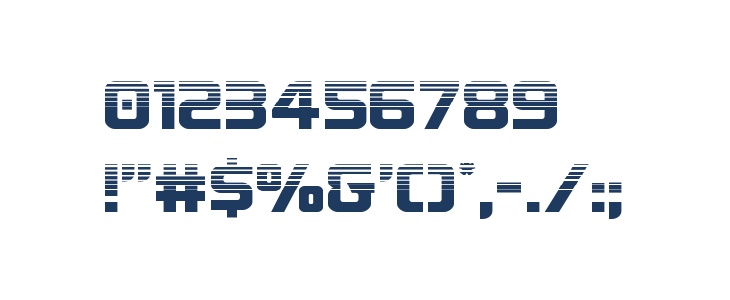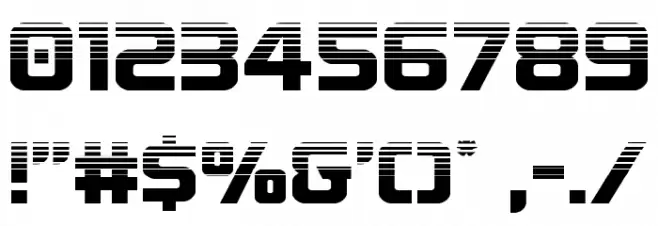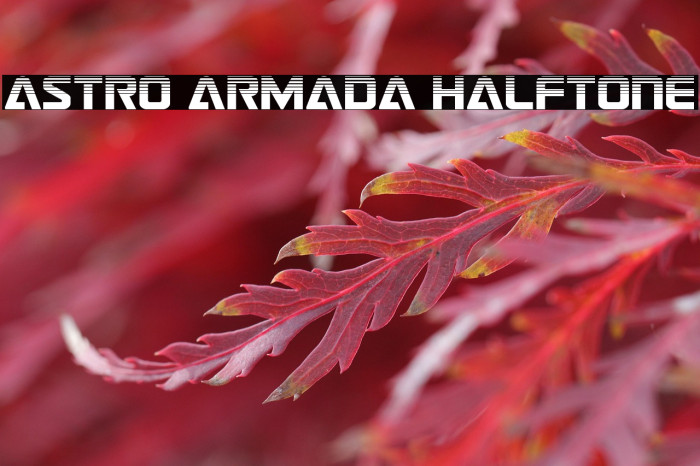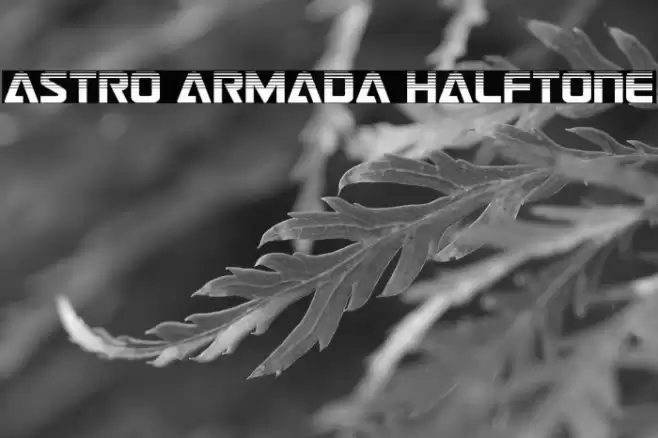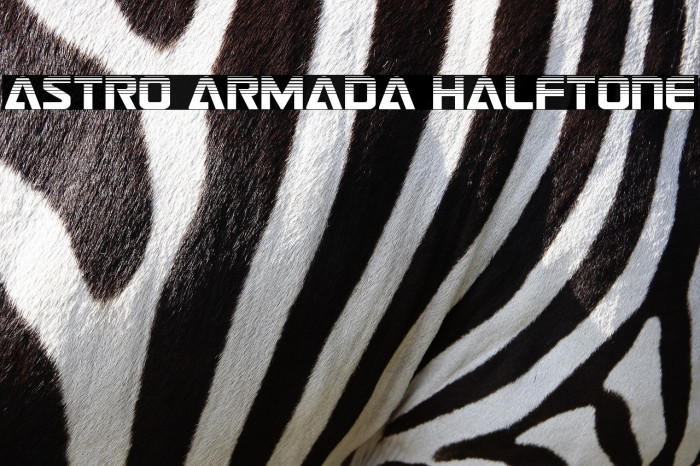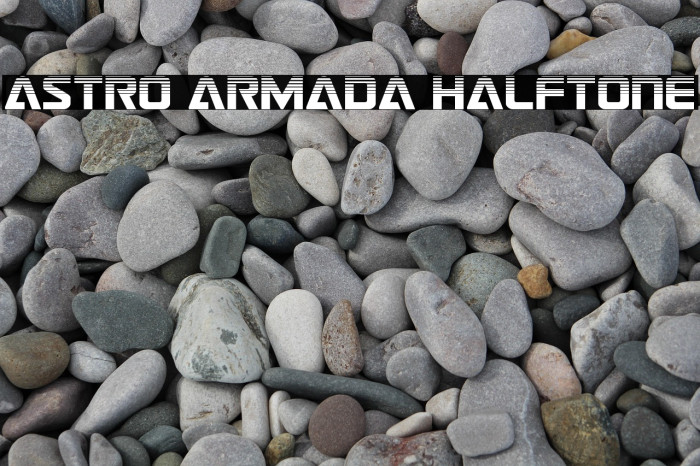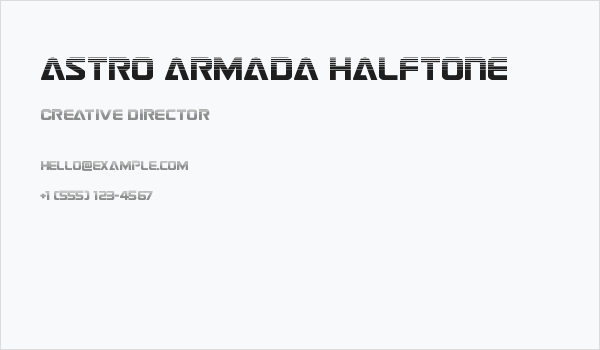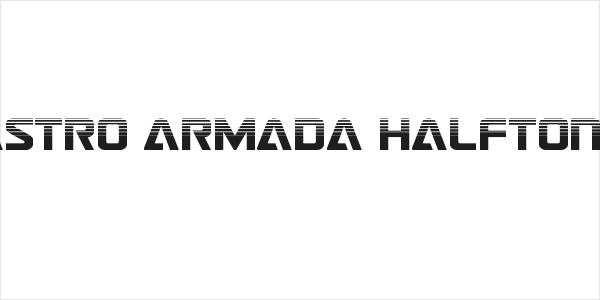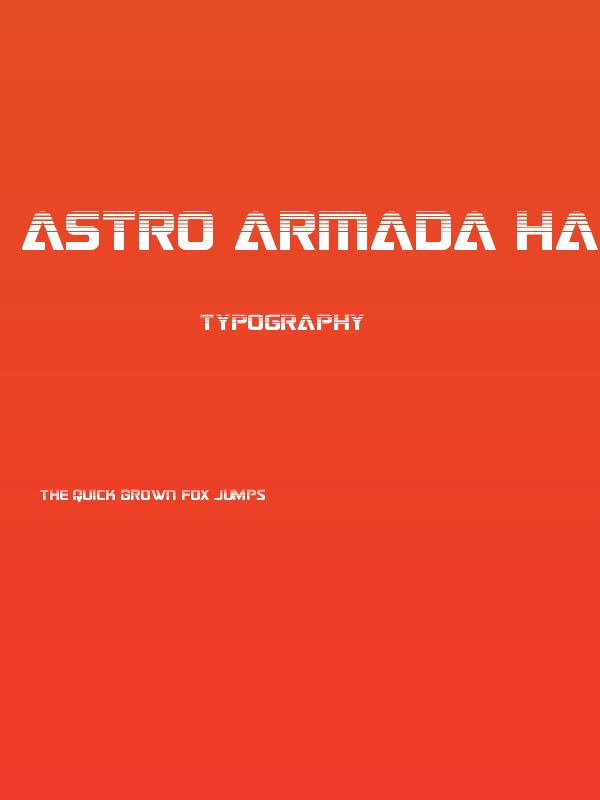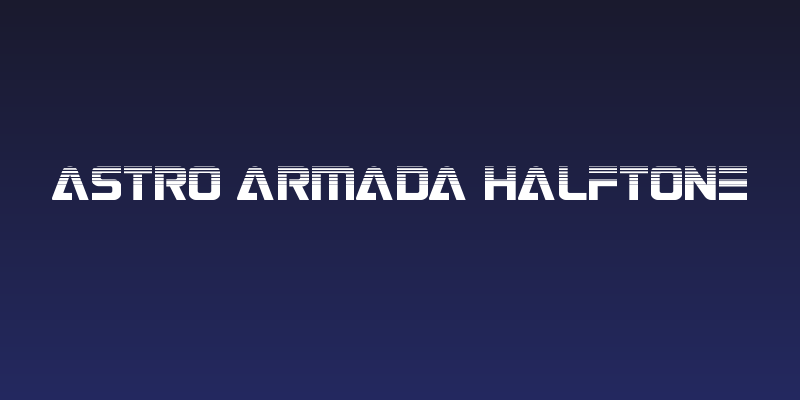
Astro Armada Halftone Font
Astro Armada Halftone Description
This font features a futuristic and bold design with a halftone effect that gives it a unique, digital appearance. The characters are constructed with solid, geometric shapes and horizontal lines that create a sense of movement and energy. The uppercase and lowercase letters maintain a consistent style, with sharp angles and a modern aesthetic. The numerals and special characters follow the same design principles, ensuring uniformity across all glyphs. This font is perfect for projects that require a tech-inspired or sci-fi theme, offering a striking visual impact.
| Proposed Projects | Ideal for sci-fi movie posters, video game titles, tech branding, and digital art projects. |